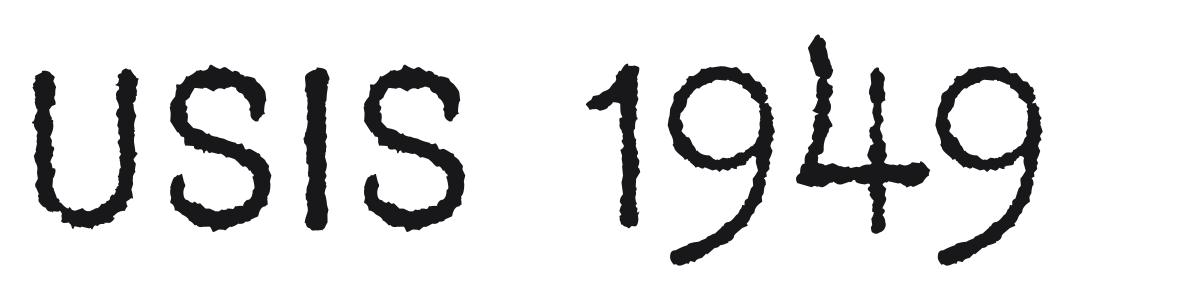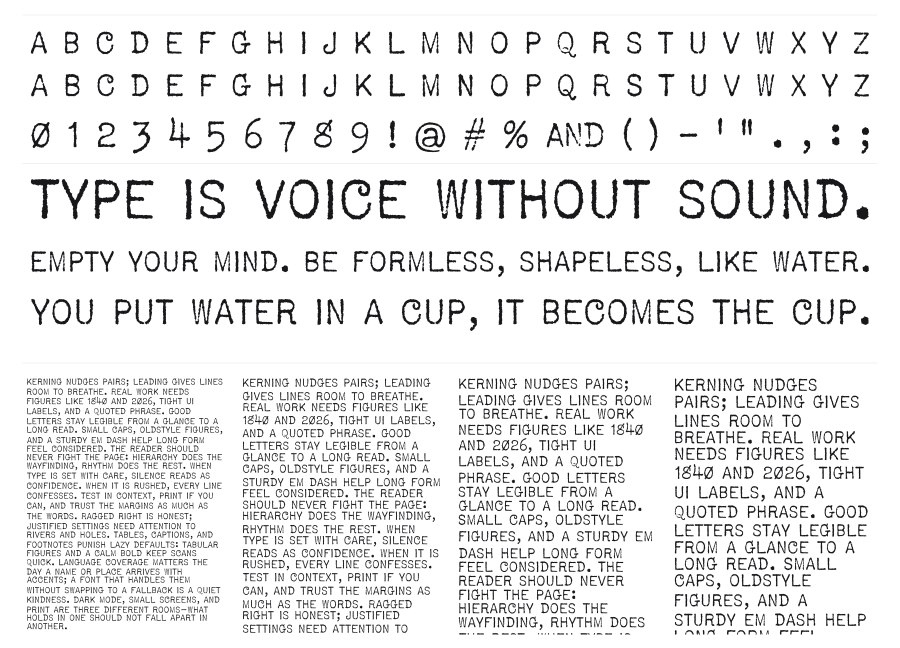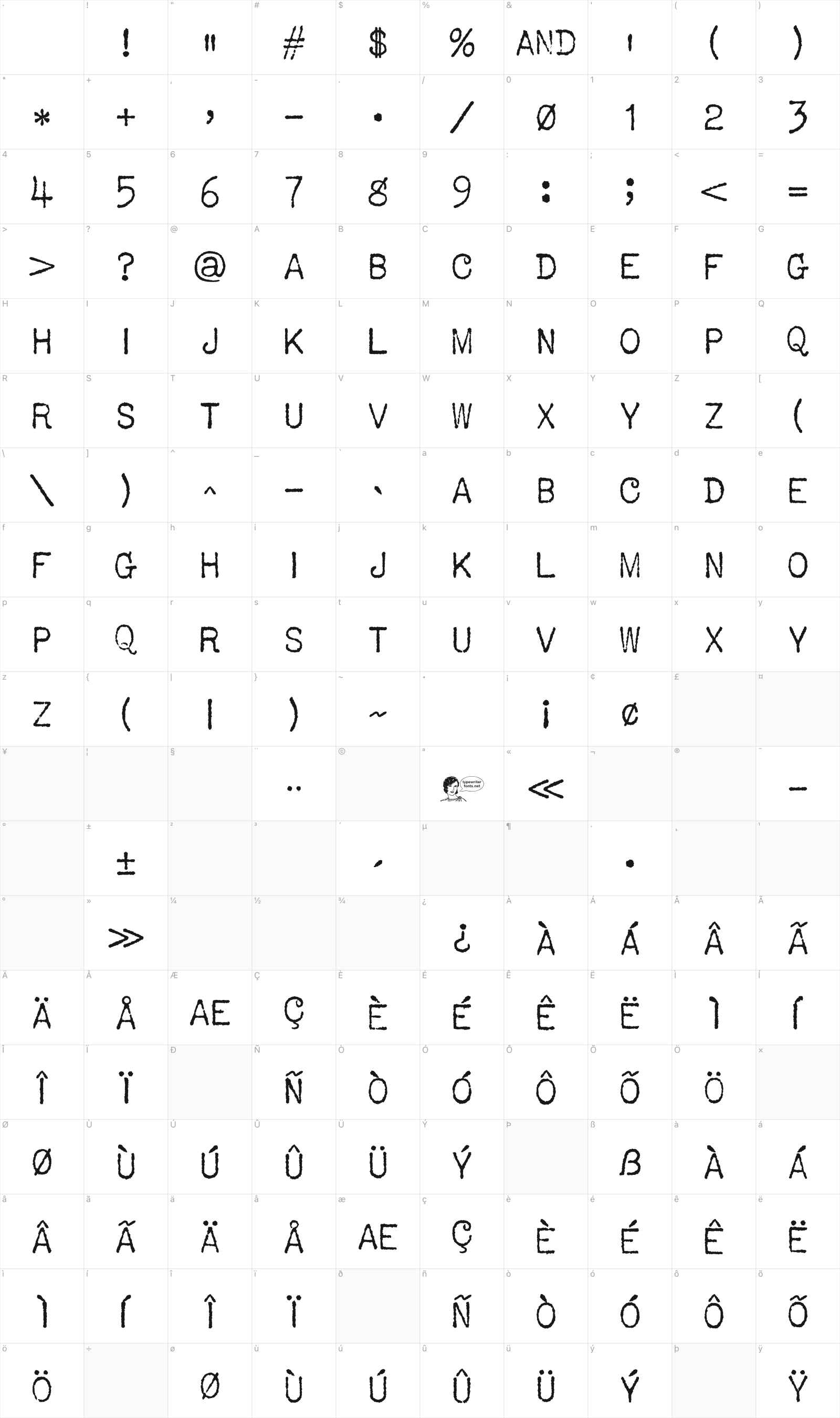
USIS 1949
USIS 1949 is a typewriter font modeled on the worn ink impressions of mid-century mechanical typing, specifically evoking the institutional documents of the late 1940s. Every character carries authentic-looking degradation: irregular edges, uneven ink fill, and the subtle misalignment of real typed text. It brings the weight of archival history to headlines, posters, and period-specific design work.